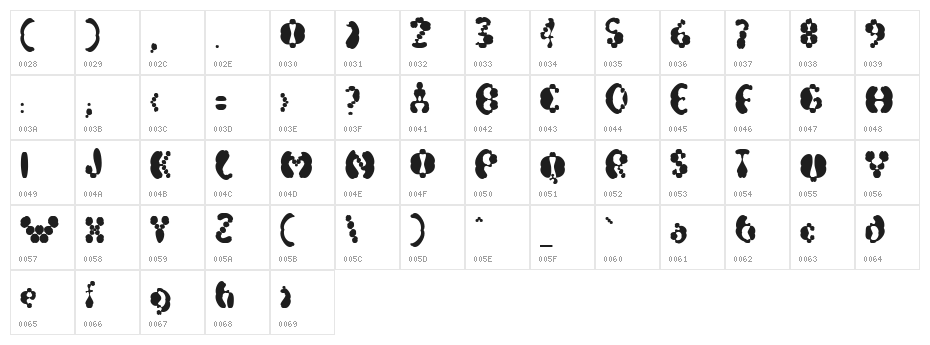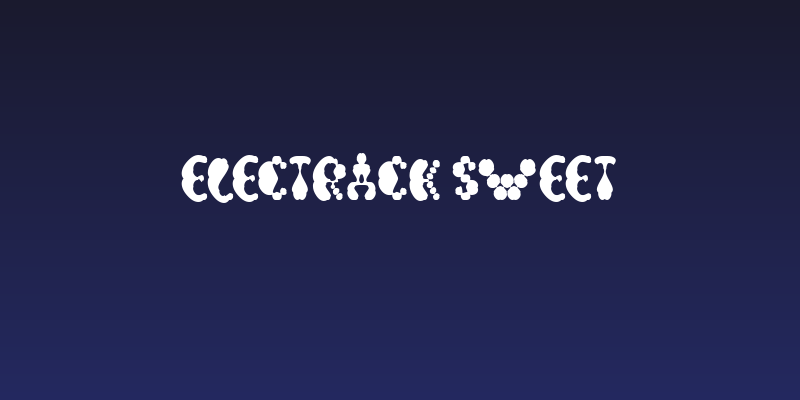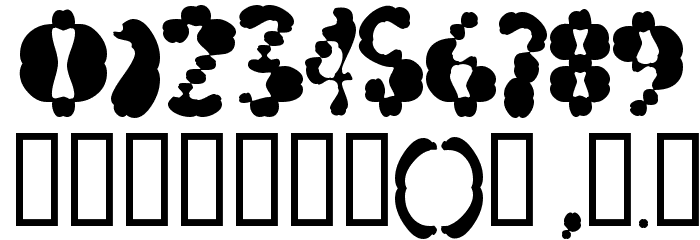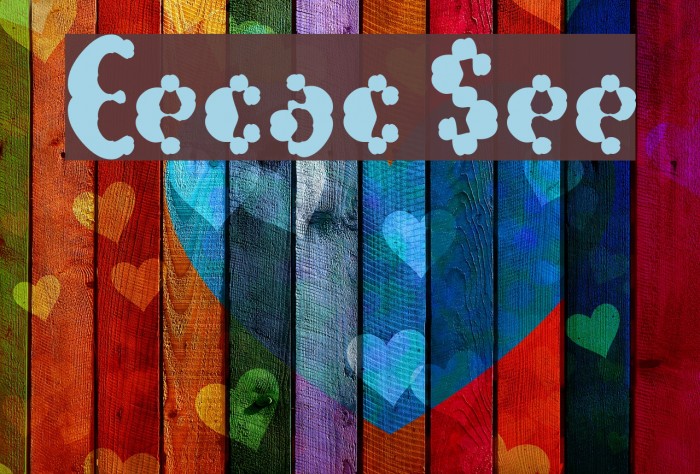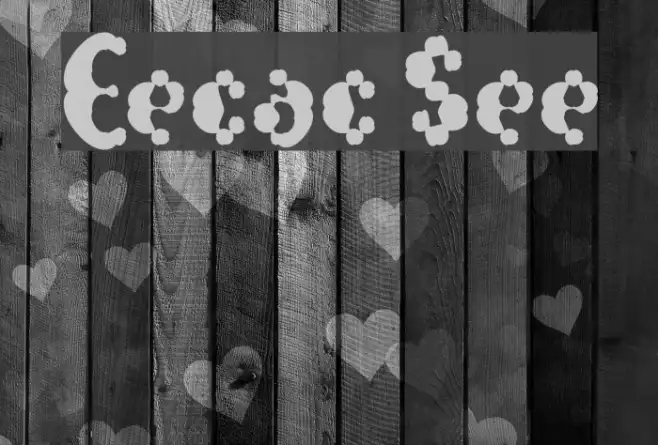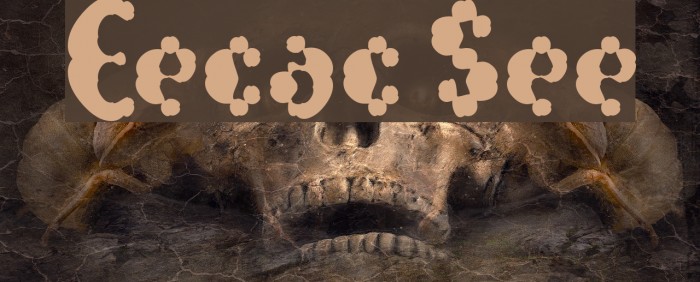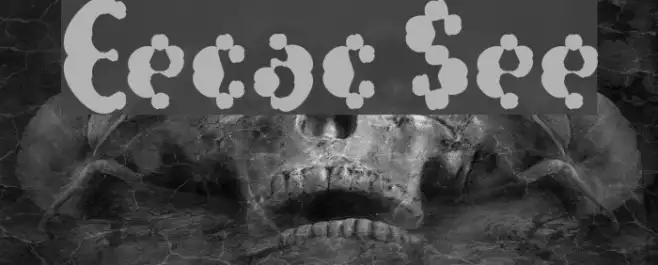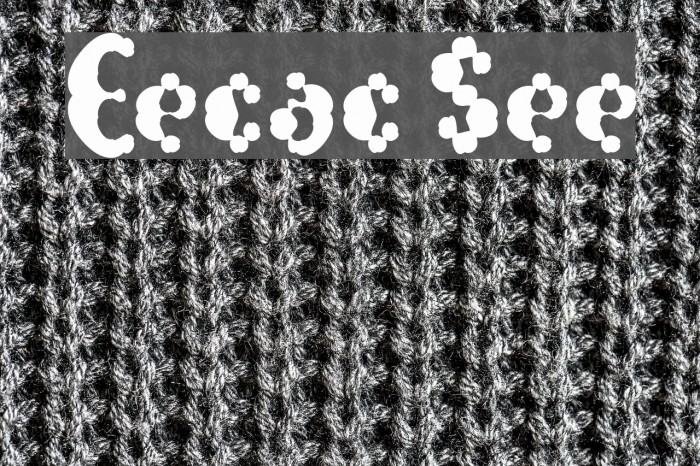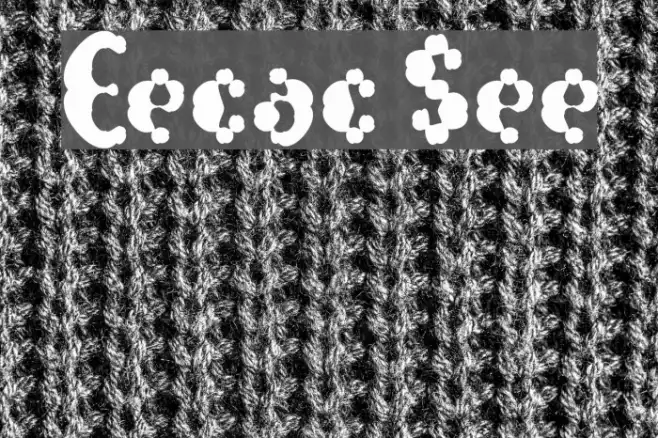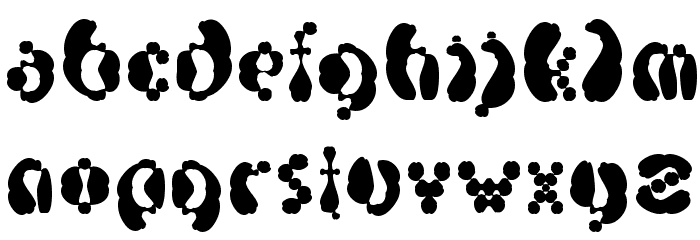
Electrack Sweet Font
| Vorgeschlagene Projekte | Ideal for poster designs, album covers, children's book titles, and any project requiring a fun and artistic touch. |